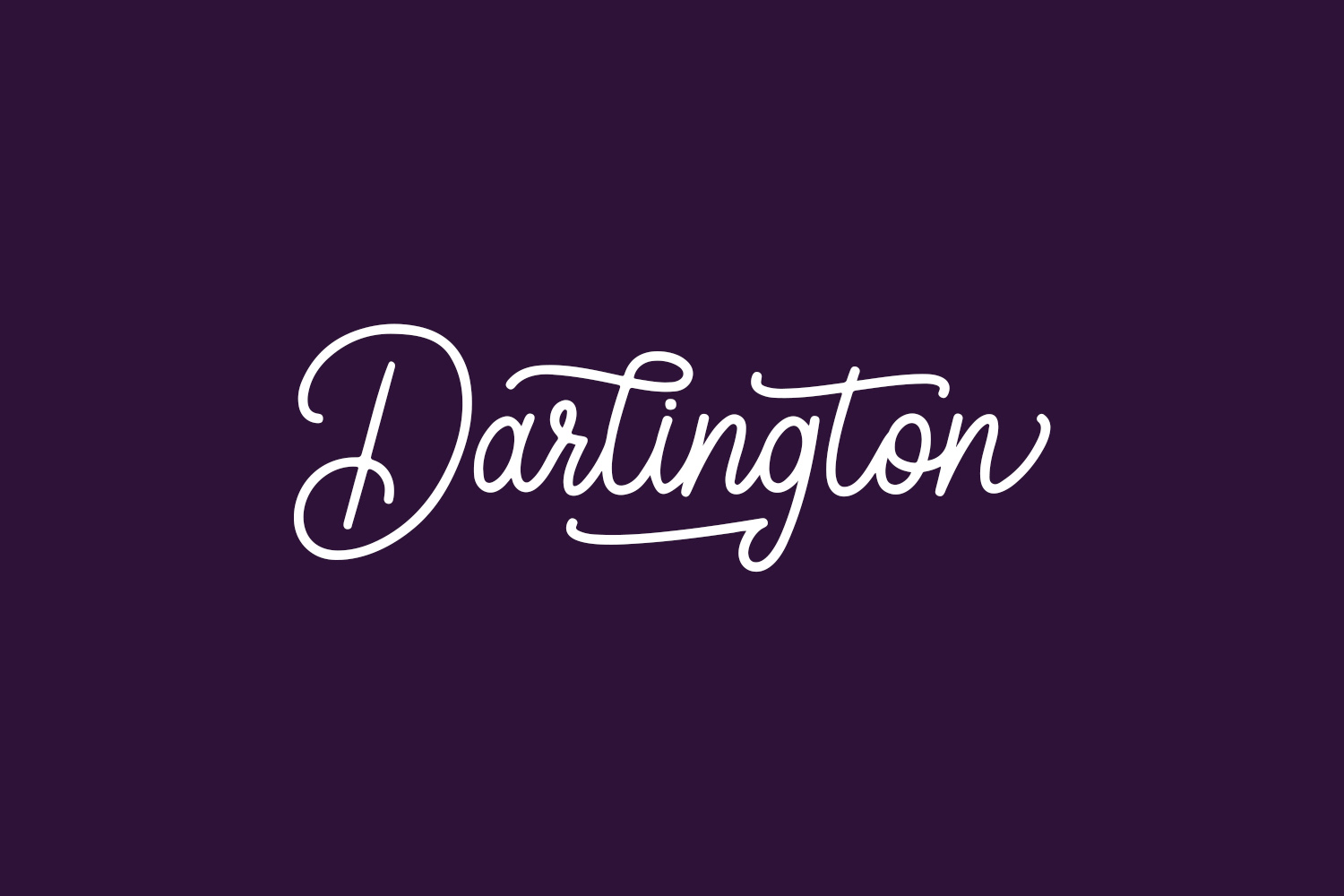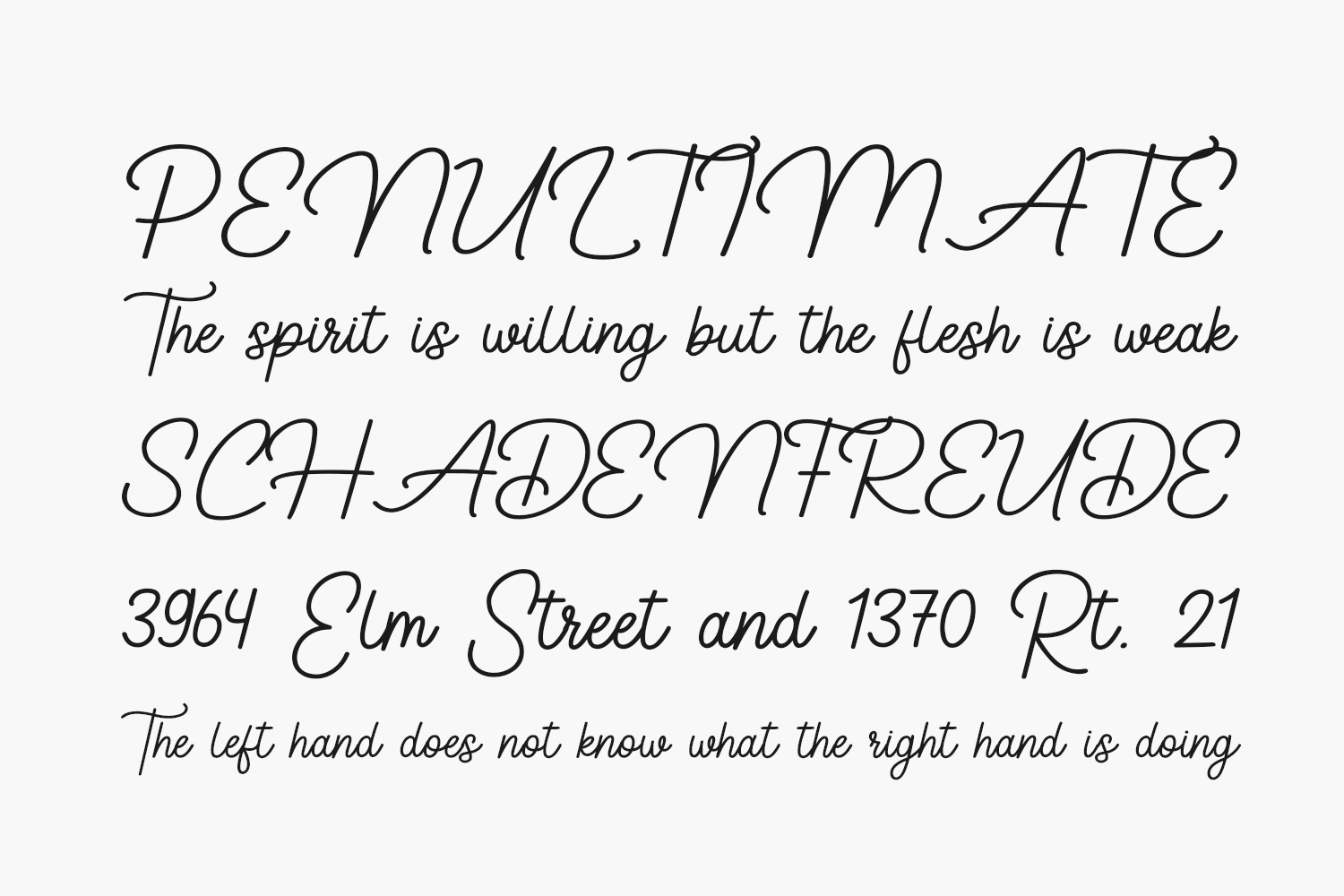
Darlington Free Font is a lovely and delicate script font that exudes elegance and class. This font was particularly crafted for those who need a beautiful and refreshing look to their designs. Darlington Free Font was designed by Glyphstyle and is free for personal use only. Please purchase the full version for commercial use.